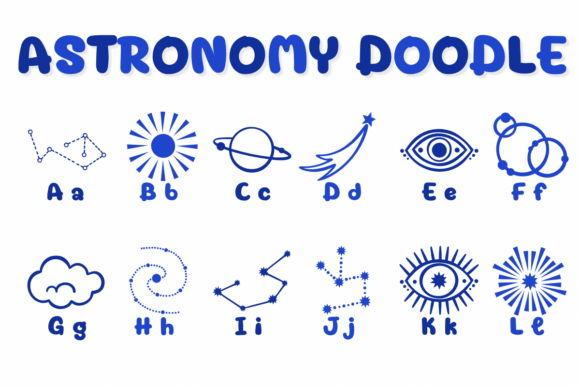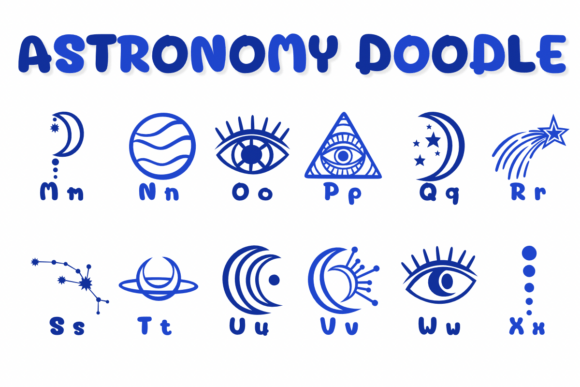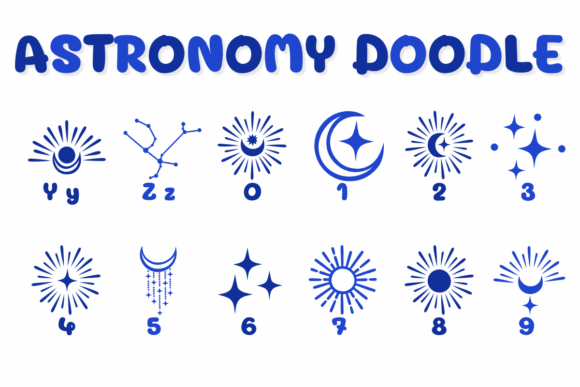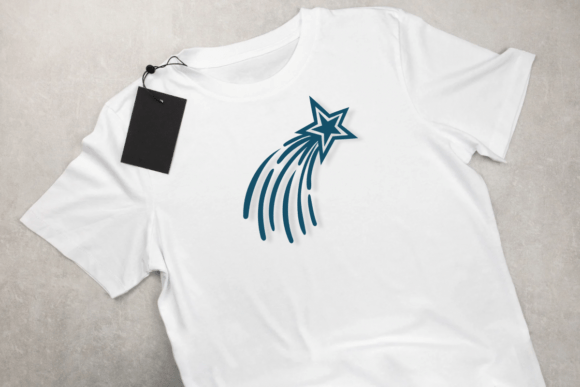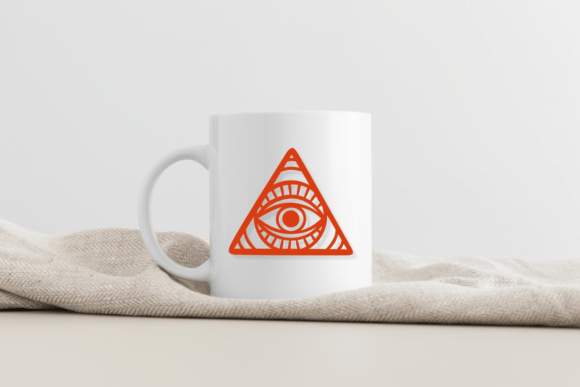
Astronomy Doodle Font: Add Celestial Charm to Your Designs
Are you a designer, crafter, or creative looking to add a touch of whimsy and magic to your projects? Look no further than the Astronomy Doodle Font, a delightful dingbat font packed with playful, hand-drawn cosmic icons. This enchanting font is perfect for infusing your designs with celestial charm, making it ideal for a wide range of creative applications.
What is Astronomy Doodle Font?
Astronomy Doodle Font is a unique and imaginative dingbat font that features a vast collection of cosmic icons, including stars, constellations, moons, planets, eyes, and other mystical elements. Each character in the font is carefully hand-drawn to create a playful and whimsical feel, making it perfect for adding a touch of personality to your designs.
Key Features of Astronomy Doodle Font
- Playful and Whimsical Design: The font features a range of playful and whimsical designs, from simple stars and moons to more complex constellations and mystical symbols.
- Hand-Drawn Characters: Each character in the font is carefully hand-drawn to create a unique and personalized feel.
- Celestial Theme: The font’s celestial theme makes it perfect for designs related to astrology, space, and the cosmos.
- Easy to Use: Simply type a letter, and a corresponding doodle will appear, making it easy to add celestial charm to your designs.
Uses for Astronomy Doodle Font
Astronomy Doodle Font is an incredibly versatile font that can be used in a wide range of creative applications, including:
- Branding: Add a touch of celestial charm to your brand’s logo or marketing materials.
- Scrapbooking: Create beautiful and unique scrapbook pages with the font’s cosmic icons.
- Posters: Design eye-catching posters for astrology-themed events or promotions.
- Stationery: Add a touch of magic to your stationery with the font’s whimsical designs.
- Digital Designs: Use the font in digital designs, such as social media graphics, blog posts, and website headers.
Benefits of Using Astronomy Doodle Font
Using Astronomy Doodle Font in your designs offers a range of benefits, including:
- Unique and Eye-Catching Designs: The font’s playful and whimsical designs are sure to grab attention and set your designs apart.
- Easy to Use: The font is incredibly easy to use, making it perfect for designers of all skill levels.
- Time-Saving: The font’s extensive collection of cosmic icons saves you time and effort in creating your own designs from scratch.
- Customization Options: The font’s hand-drawn characters offer a range of customization options, allowing you to create unique and personalized designs.
Tips for Using Astronomy Doodle Font
Here are some tips for getting the most out of Astronomy Doodle Font:
- Experiment with Different Characters: The font features a wide range of characters, so experiment with different letters and symbols to find the perfect design for your project.
- Mix and Match Designs: Combine different designs and characters to create unique and eye-catching compositions.
- Use in Combination with Other Fonts: Use Astronomy Doodle Font in combination with other fonts to create visually interesting and dynamic designs.
Astronomy Doodle Font is a unique and imaginative dingbat font that offers a range of creative possibilities for designers, crafters, and creatives. With its playful and whimsical designs, ease of use, and versatility, this font is perfect for adding celestial charm to your designs. Whether you’re creating branding materials, scrapbook pages, posters, or digital designs, Astronomy Doodle Font is sure to inspire and delight.